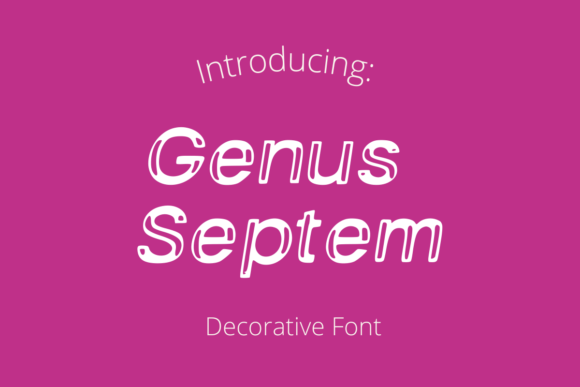
The Art of Typography: Unveiling the Elegance of Genus Septem Font
As a designer, have you ever found yourself lost in a sea of possibilities, searching for the perfect font to elevate your art? You’re browsing through countless options, and suddenly, it hits you – the perfect combination of lines, shapes, and curves that speaks to your creative soul. This is exactly what happens when you discover the Genus Septem Font, a masterpiece that embodies the essence of modern artistry.
Genus Septem Font is a geometric and abstract masterpiece designed to push the boundaries of typography. Its unique shapes and lines give it a contemporary and artistic look, making it a great choice for modern art exhibits, abstract graphics, and avant-garde designs. This font is a valuable asset for designers, as it adds an extra layer of sophistication and creativity to their projects.
Key Features of Genus Septem Font
- Font Family: Genus Septem is a sans-serif font family that includes 12 styles, from Thin to Black.
- Unique Characteristics: Genus Septem is designed to be highly legible and readable, making it suitable for body text, signage, and other applications where clarity is crucial.
Genus Septem Font Review
Overall, I think Genus Septem Font is a solid choice for designers. It has a unique blend of modern and vintage elements that can add some much-needed flair to your projects. ✨ One of the things that works well is the font’s adaptability – it’s suitable for both body text and headings, making it a great choice for long-form content or presentations.
Another thing I like about Genus Septem Font is its legibility. The font is designed to be easy to read, even at smaller font sizes, which is a major plus for designers who need to ensure their content is accessible to a wide range of audiences. ✨ The font also has a nice range of weights and styles, which can help to add visual interest to your designs.
While Genus Septem Font has many great qualities, there are a few limitations to be aware of:
- ⚠️ The font may not be suitable for very large-scale projects or high-impact branding. It’s a relatively subtle font that may get lost in a crowded design environment.
- ⚠️ Some users may find the font’s vintage elements to be too ornate or distracting, especially in situations where simplicity is key.
Overall, I think Genus Septem Font is a great choice for designers who want a unique, adaptable font that’s easy to read and use. With some careful consideration of its limitations, I think it can be a valuable addition to any design toolkit.
Genus Septem Font is a versatile font that can be used in a variety of contexts, including:
1. Branding and logo design.
2. Print materials, such as business cards and brochures.
3. Digital design, such as website headers and footers.
For optimal results, use Genus Septem Font in conjunction with a clear and concise design aesthetic.